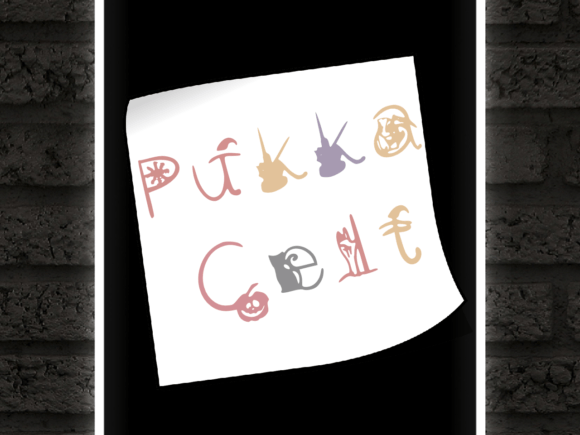
Embark on a wickedly enchanting journey with Pukkacelt, a decorative font that weaves a spellbinding tale of Halloween. Prepare to be captivated by its meticulously crafted characters, each a unique masterpiece inspired by the haunting beauty of All Hallows' Eve.
Unleash your creativity with Pukkacelt, the font that transforms the ordinary into the extraordinary. Its intricate details and captivating designs will cast a magical aura over your letters, greeting cards, and any creative project you dare to adorn with its presence.
Picture the awe on your recipient's face as they behold the hauntingly beautiful letters penned with Pukkacelt. Its playful cats, sinister spider webs, menacing castles, and ethereal ghost hands will transport them to a realm of enchantment and mystery.
With Pukkacelt, your creative endeavors will transcend the mundane and enter the realm of the extraordinary. Its versatility knows no bounds, beckoning you to explore a myriad of design possibilities. From invitations that evoke a sense of eerie elegance to posters that scream Halloween cheer, Pukkacelt will make your creations the talk of the town.
Don't let the ordinary stifle your creativity. Embrace the allure of the unknown with Pukkacelt, the font that will ignite your imagination and leave a lasting impression on all who encounter its enchanting embrace. Dare to be different, dare to bewitching, and experience the magic that awaits with Pukkacelt.